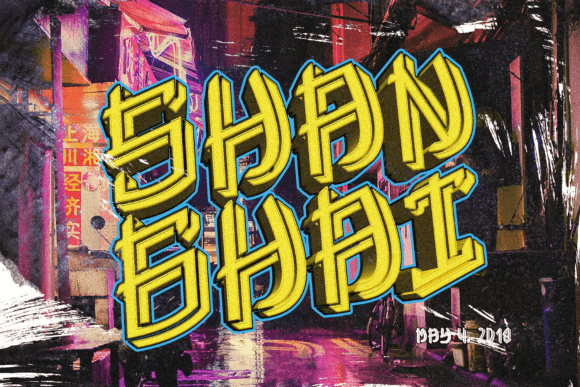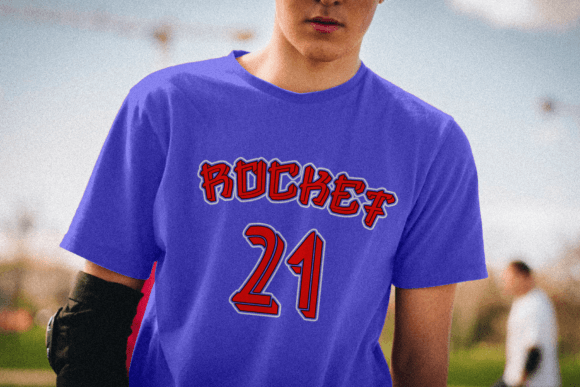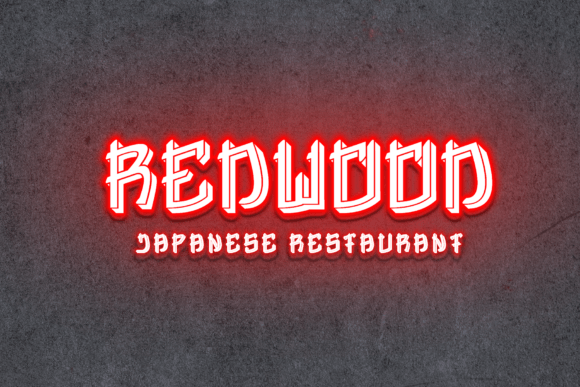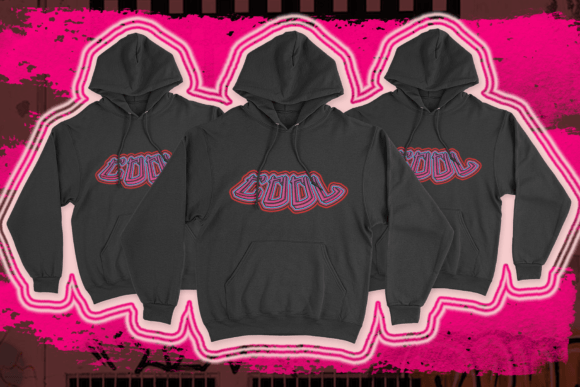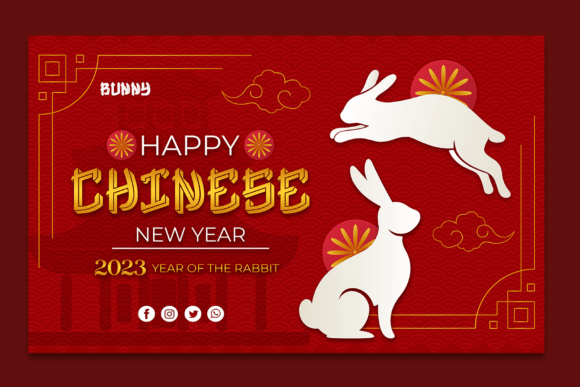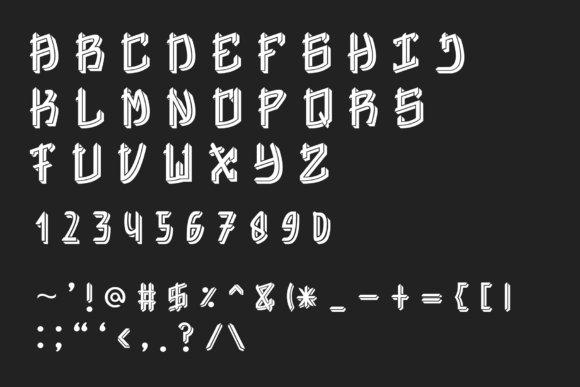
Easter West Font: Elevate Your Designs with a Modern and Bold Display Font
In the world of typography, fonts play a crucial role in conveying the tone and personality of a design. For designers and crafters looking for a clean, modern, and bold appearance, the Easter West font is an excellent choice. This display font features straight and sharp character shapes, making it perfect for designs that require a sharp and straightforward typography style.
Characteristics of Easter West Font
The Easter West font is characterized by its straight and sharp character shapes, which give it a modern and sleek appearance. The font’s clean lines and minimalist design make it an excellent choice for designs that require a bold and eye-catching typography style. The font’s simplicity also makes it highly versatile, allowing it to be used in a wide range of design projects.
Design Applications of Easter West Font
The Easter West font can be used in a variety of design projects, including:
- Logos: The font’s bold and modern appearance makes it an excellent choice for logos that require a strong and memorable typography style.
- Headlines: The font’s clean lines and sharp character shapes make it perfect for headlines that require a bold and attention-grabbing typography style.
- Posters: The font’s simplicity and versatility make it an excellent choice for posters that require a clear and easy-to-read typography style.
- Creative Applications: The font can also be used in other creative applications, such as brochures, flyers, and social media graphics, where a sharp and straightforward typography style is desired.
Benefits of Using Easter West Font
The Easter West font offers several benefits to designers and crafters, including:
- Clean and Modern Appearance: The font’s clean lines and minimalist design give it a modern and sleek appearance that is perfect for designs that require a bold and eye-catching typography style.
- High Versatility: The font’s simplicity makes it highly versatile, allowing it to be used in a wide range of design projects.
- Easy to Read: The font’s clear and straightforward design makes it easy to read, even at small sizes.
- Time-Saving: The font’s bold and modern appearance makes it an excellent choice for designers who need to create high-quality designs quickly.
Tips for Using Easter West Font
Here are some tips for using the Easter West font in your designs:
- Use it for Headlines: The font’s bold and modern appearance makes it perfect for headlines that require a strong and attention-grabbing typography style.
- Pair it with Other Fonts: The font’s simplicity makes it an excellent choice for pairing with other fonts, such as script fonts or serif fonts.
- Experiment with Colors: The font’s clean lines and minimalist design make it an excellent choice for experimenting with different colors and textures.
- Use it for Branding: The font’s bold and modern appearance makes it an excellent choice for branding projects, such as logos and business cards.
The Easter West font is an excellent choice for designers and crafters looking for a clean, modern, and bold display font. Its straight and sharp character shapes make it perfect for designs that require a sharp and straightforward typography style. With its high versatility, ease of use, and modern appearance, the Easter West font is an excellent addition to any design project.
Whether you’re designing a logo, headline, poster, or other creative application, the Easter West font is an excellent choice. Its clean lines, minimalist design, and bold appearance make it perfect for designs that require a strong and memorable typography style. So why not give it a try and see how it can elevate your designs?